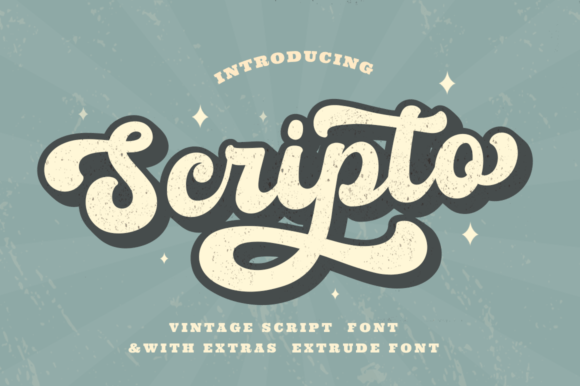
Step into the captivating world of Scripto Font, a remarkable retro-styled script font that ignites creativity with its bold and playful strokes. Crafted with meticulous detail, this font is a true gem, adding a touch of timeless elegance to any project.
Embrace the nostalgia of the past and let Scripto's enchanting curves take you on a journey through time. Its retro-inspired charm evokes a sense of authenticity and character, making it an ideal choice for creating logos, branding, and eye-catching headlines that demand attention.
Unleash your imagination and explore the endless possibilities Scripto offers. Its versatility shines through, effortlessly adapting to a wide range of design styles. From elegant invitations and wedding stationery to quirky posters and social media graphics, Scripto's versatility knows no bounds.
With Scripto, crafting stunning designs becomes a breeze. Its PUA encoding grants easy access to a treasure trove of glyphs and swashes, empowering you to add intricate details and flourishes to your creations. Elevate your designs with unique characters and flourishes that leave a lasting impression.
Immerse yourself in the beauty of Scripto and discover the joy of creating captivating designs that speak to the heart. Its ability to transform ordinary text into captivating works of art makes it a must-have for any designer seeking to leave an indelible mark.